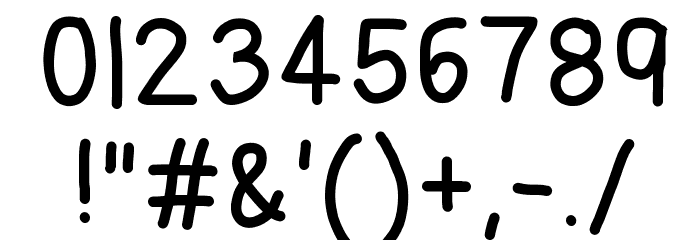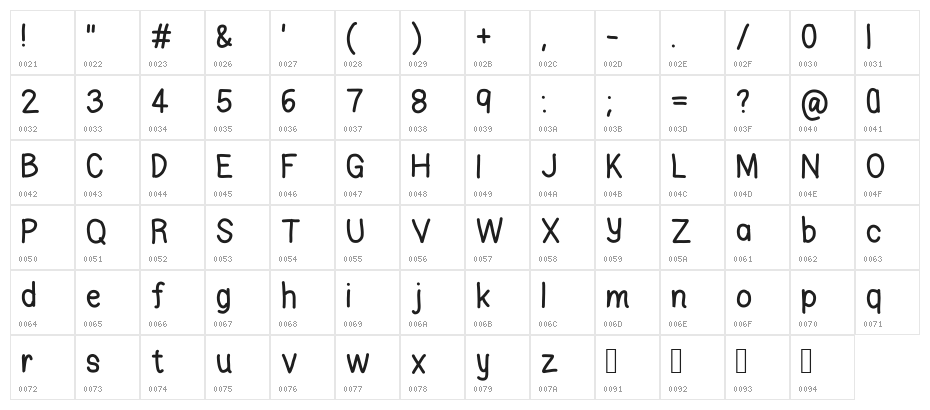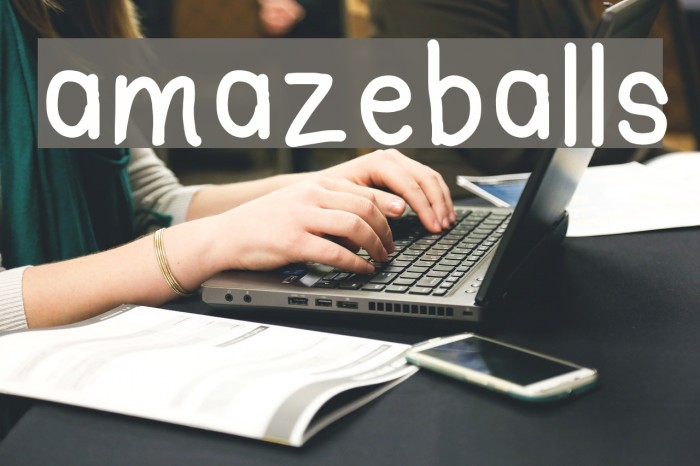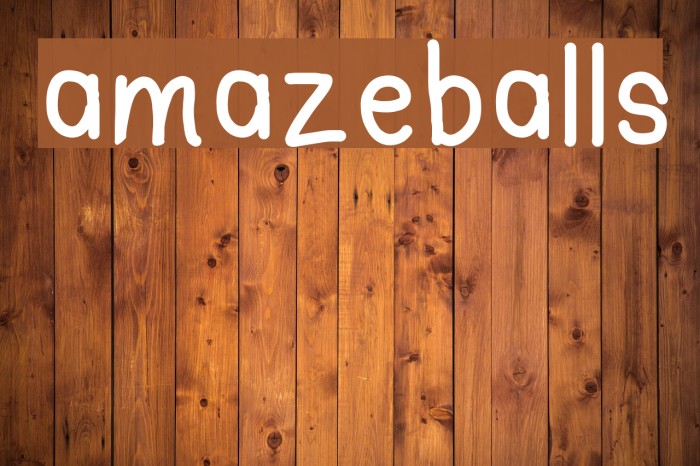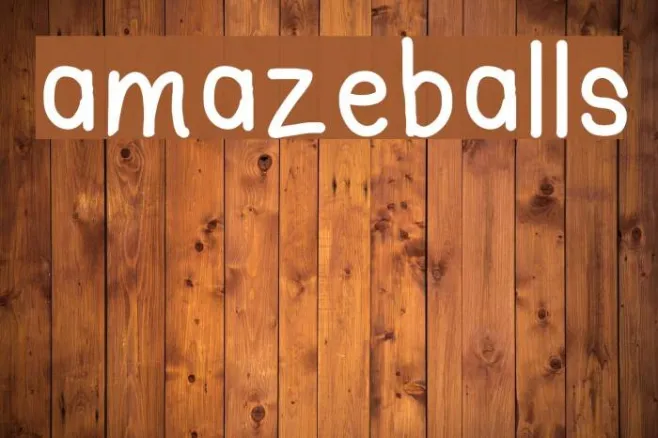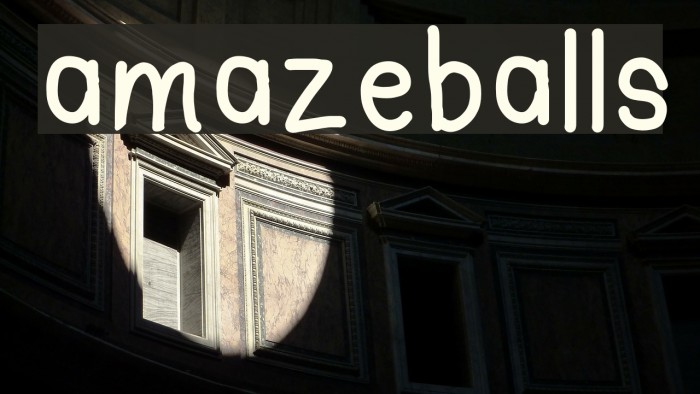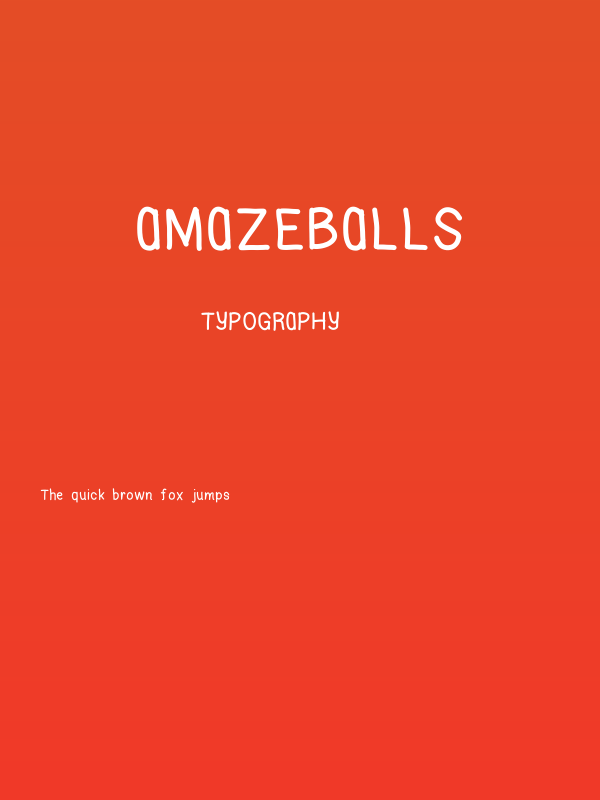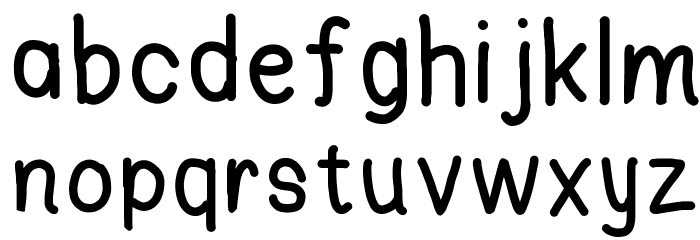
amazeballs Font
amazeballs Description
This playful and whimsical font features a handwritten style with rounded edges and a casual appearance. The letters are slightly uneven, adding to the charm and informal feel. The uppercase and lowercase characters maintain a consistent style, with a friendly and approachable look. The numerals and special characters are designed to match the overall aesthetic, making the font versatile for various uses. Its simplicity and warmth make it suitable for projects that require a personal touch.
| Proposed Projects | Ideal for children's books, greeting cards, casual branding, and social media graphics. |